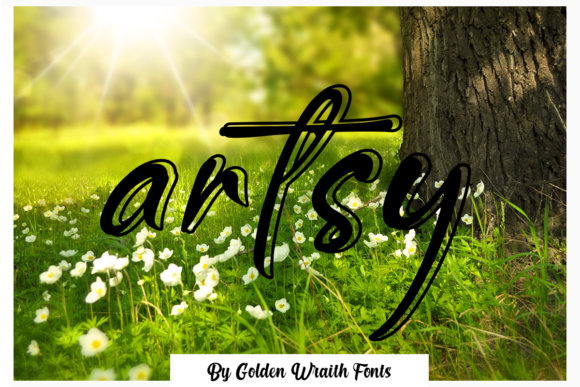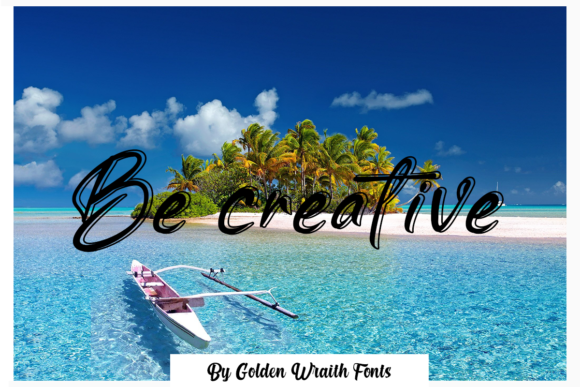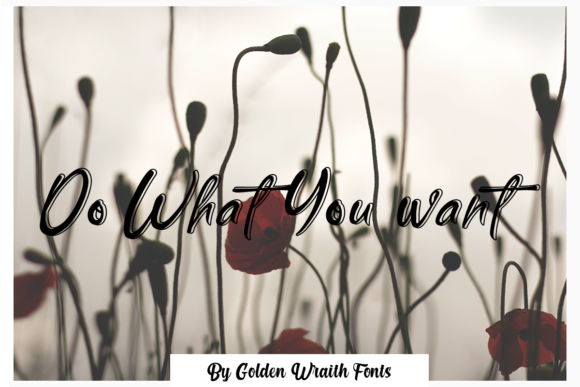
Artsy Font
About Artsy Font
Artsy is an enchanting handwritten font. This versatile script font has a wide spectrum of applications ranging from greeting cards to headlines and is guaranteed to add a romantic feel to your next project.